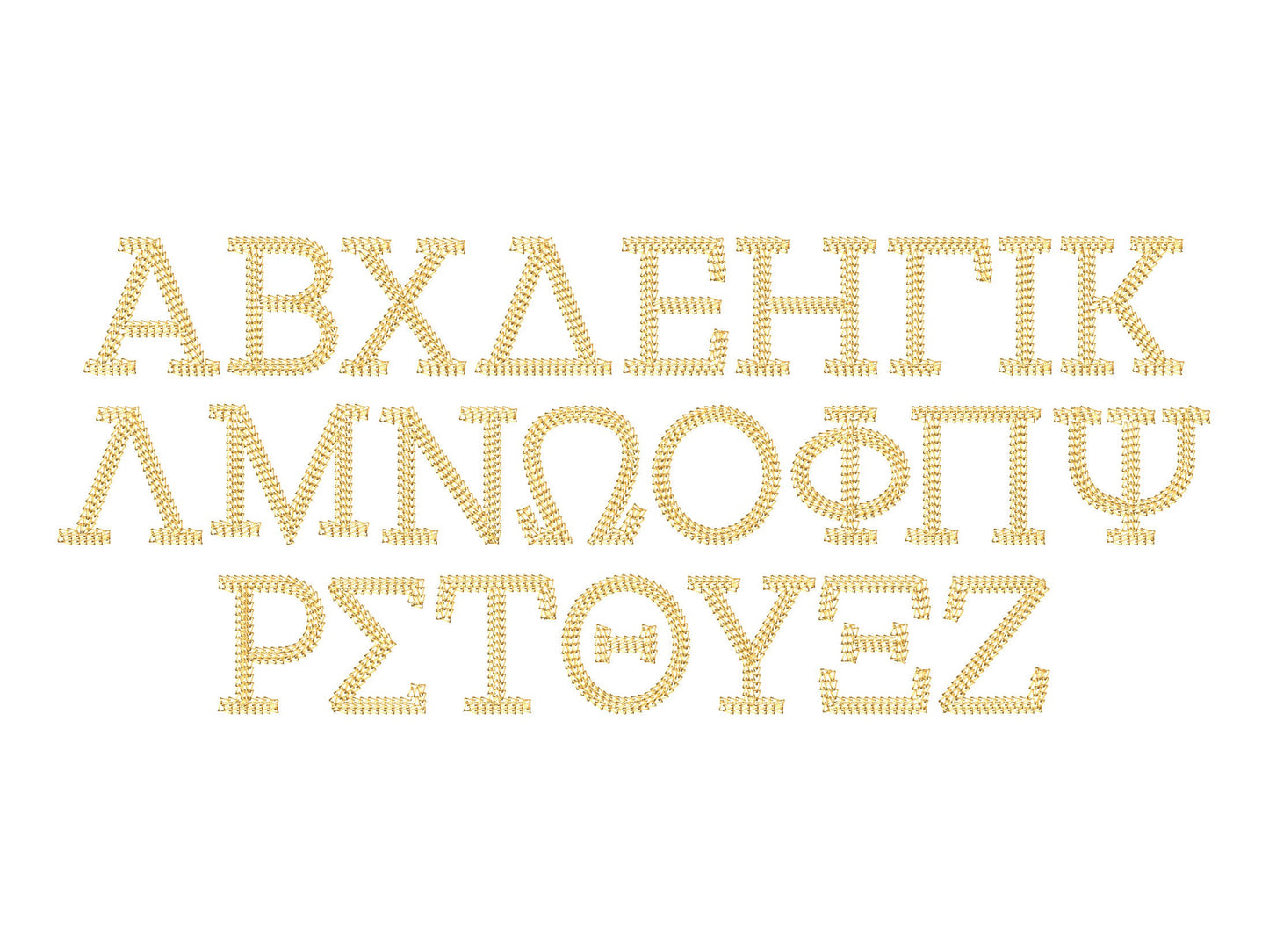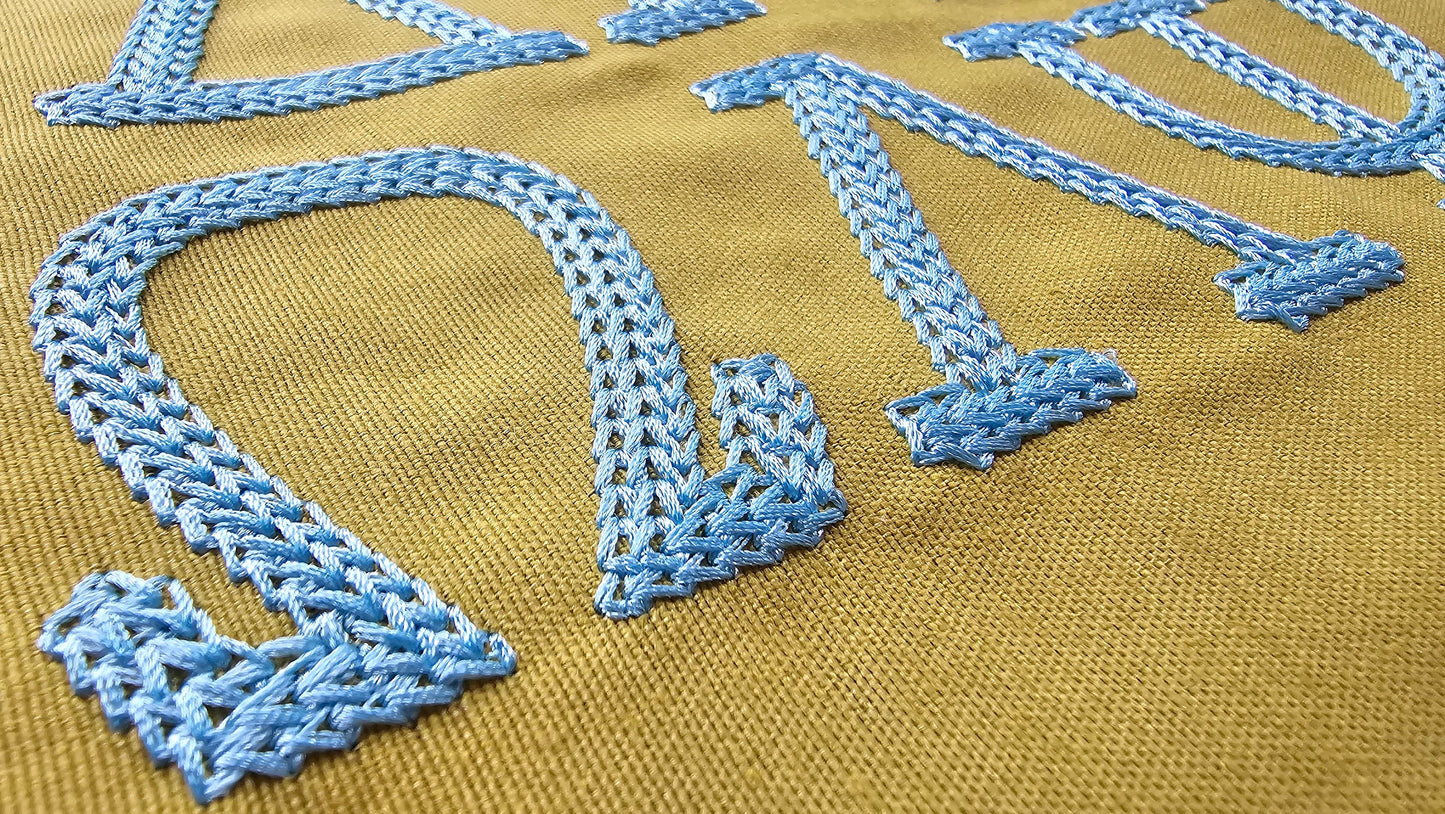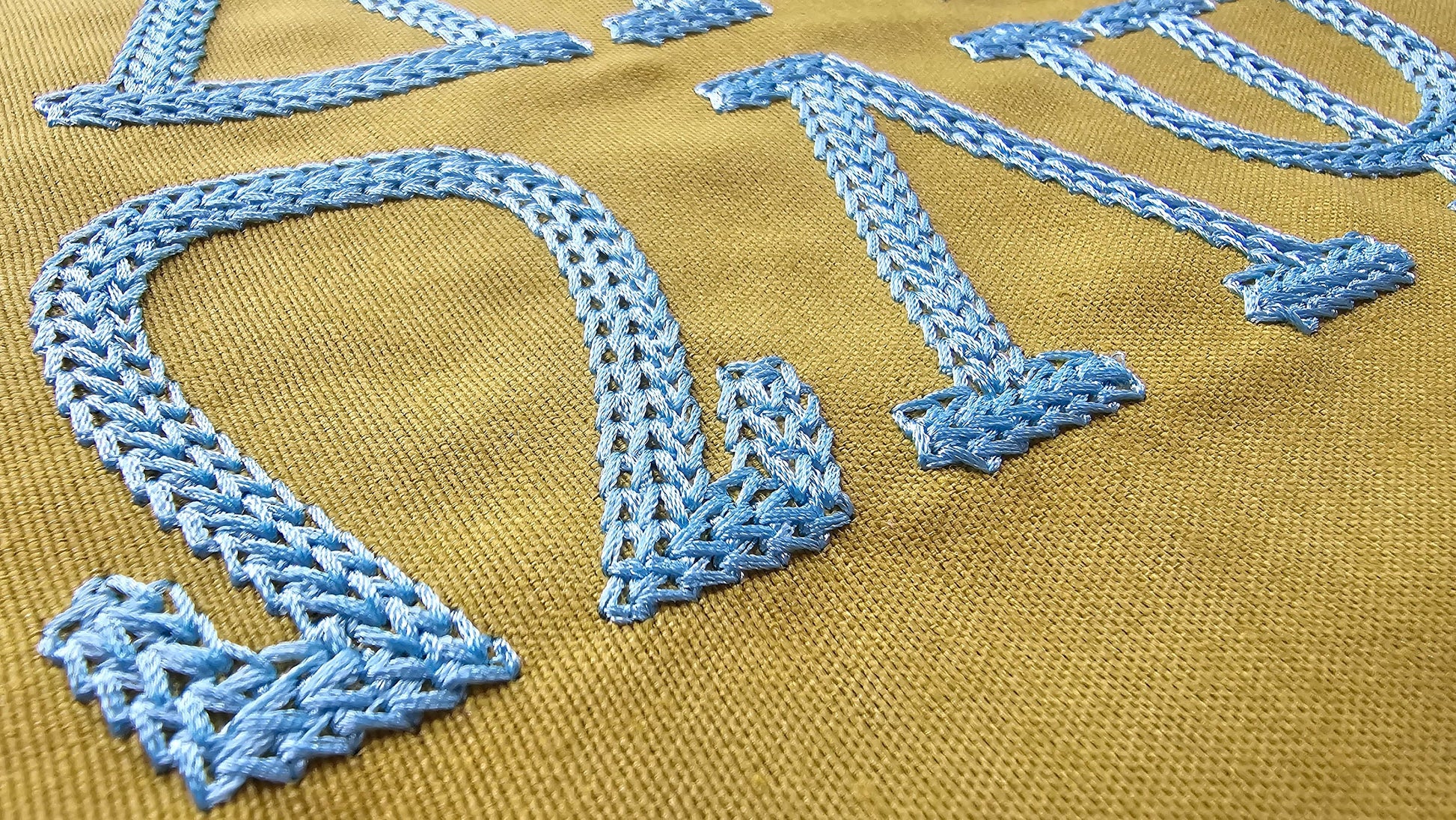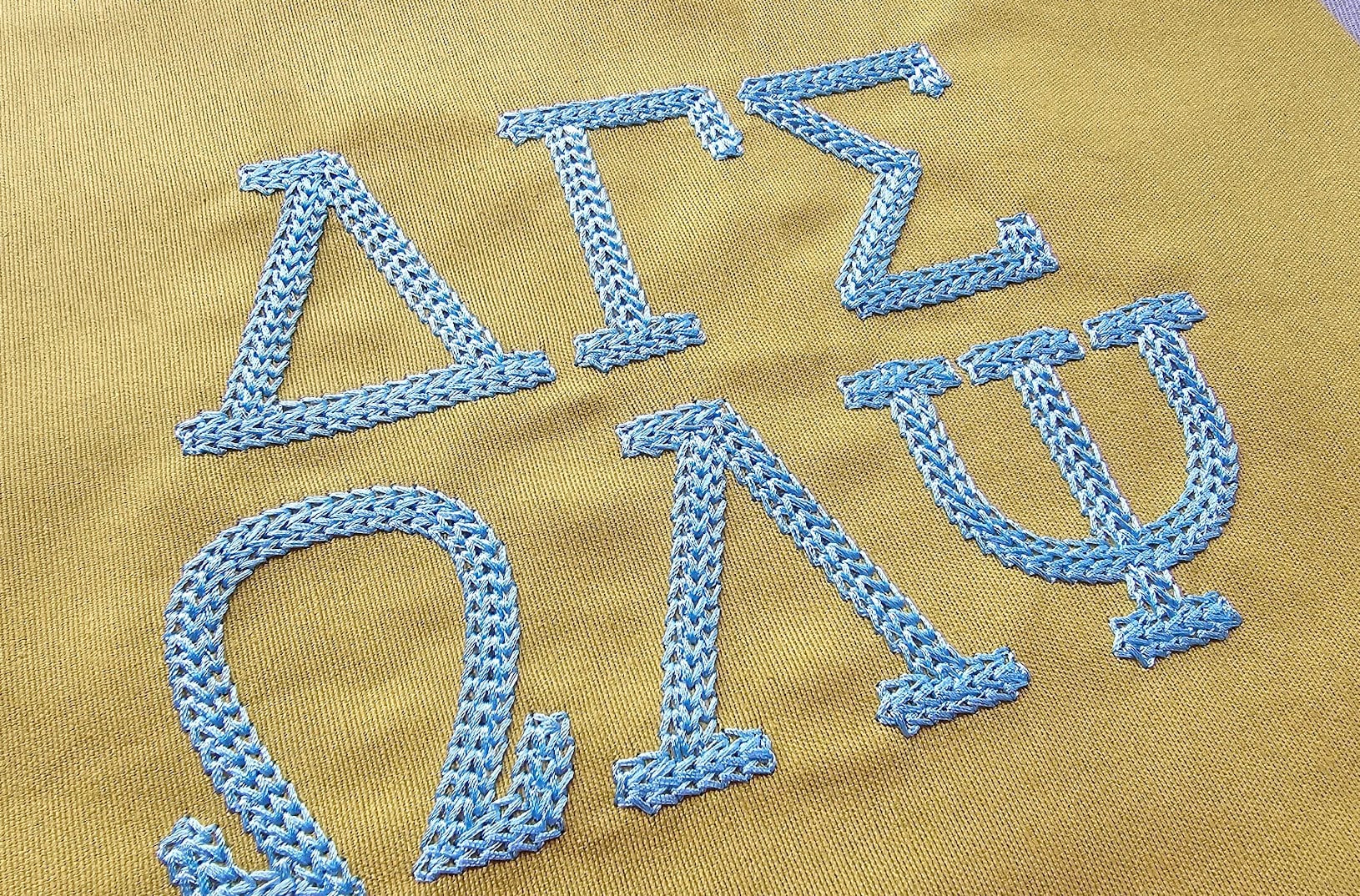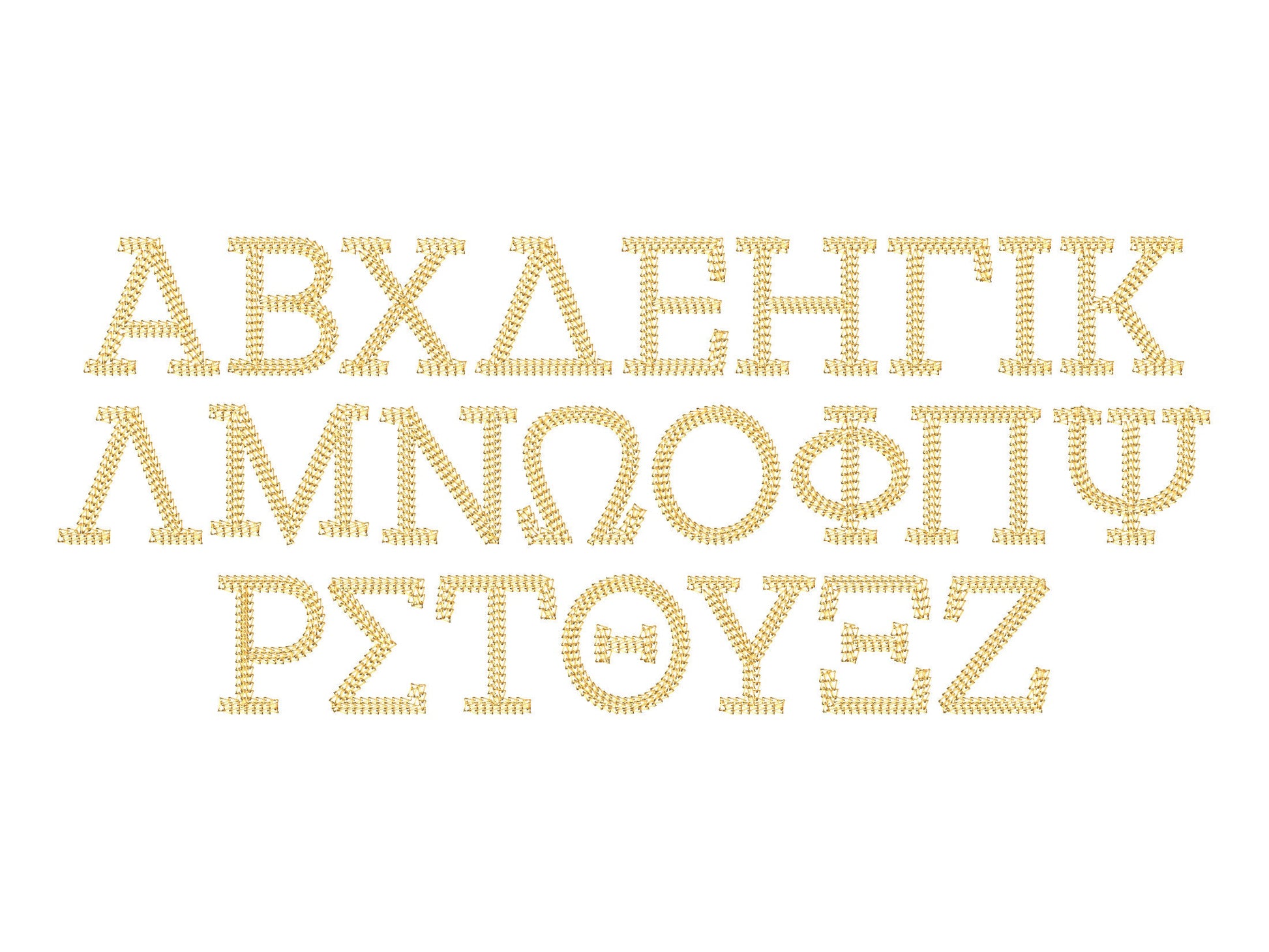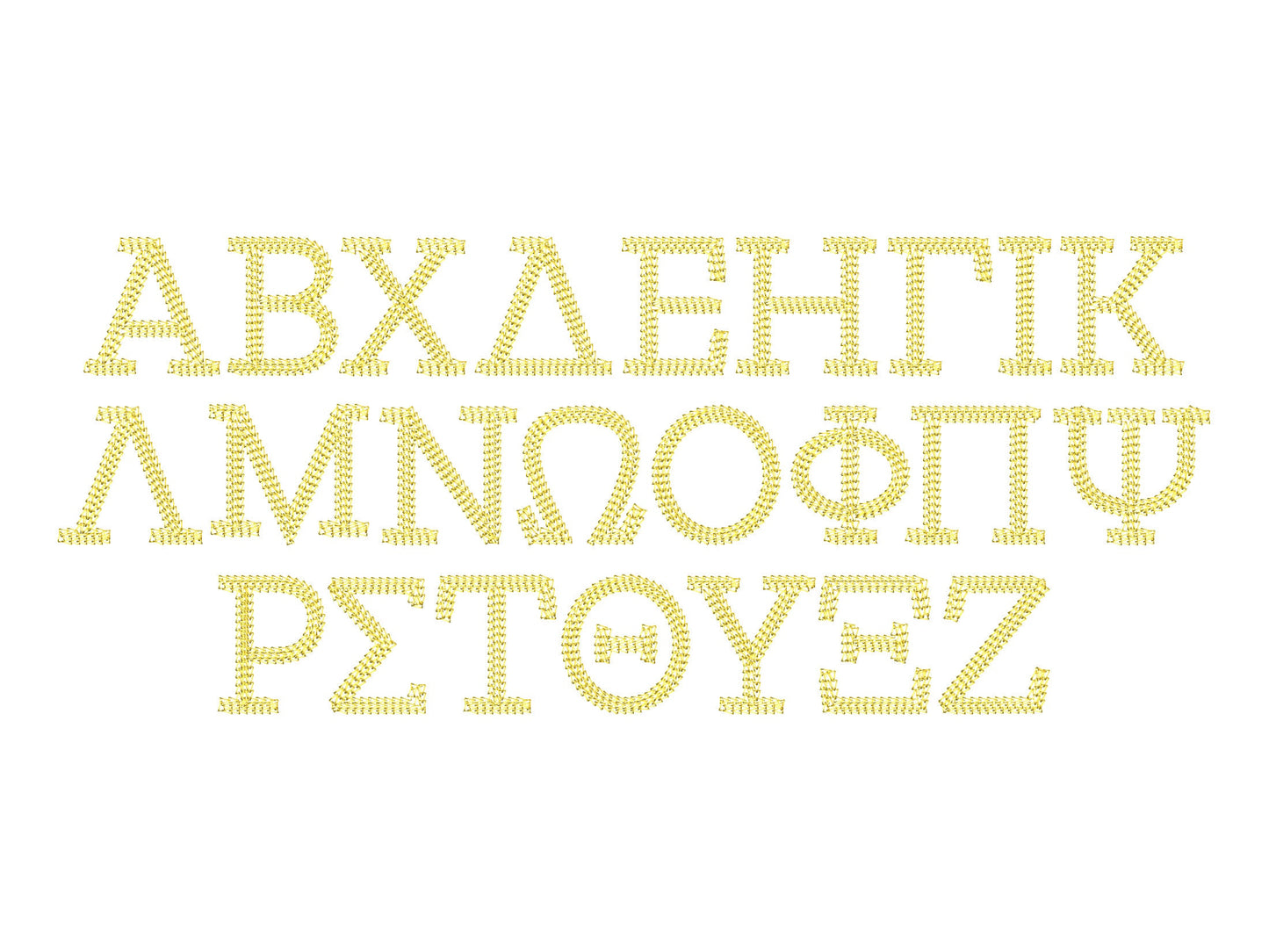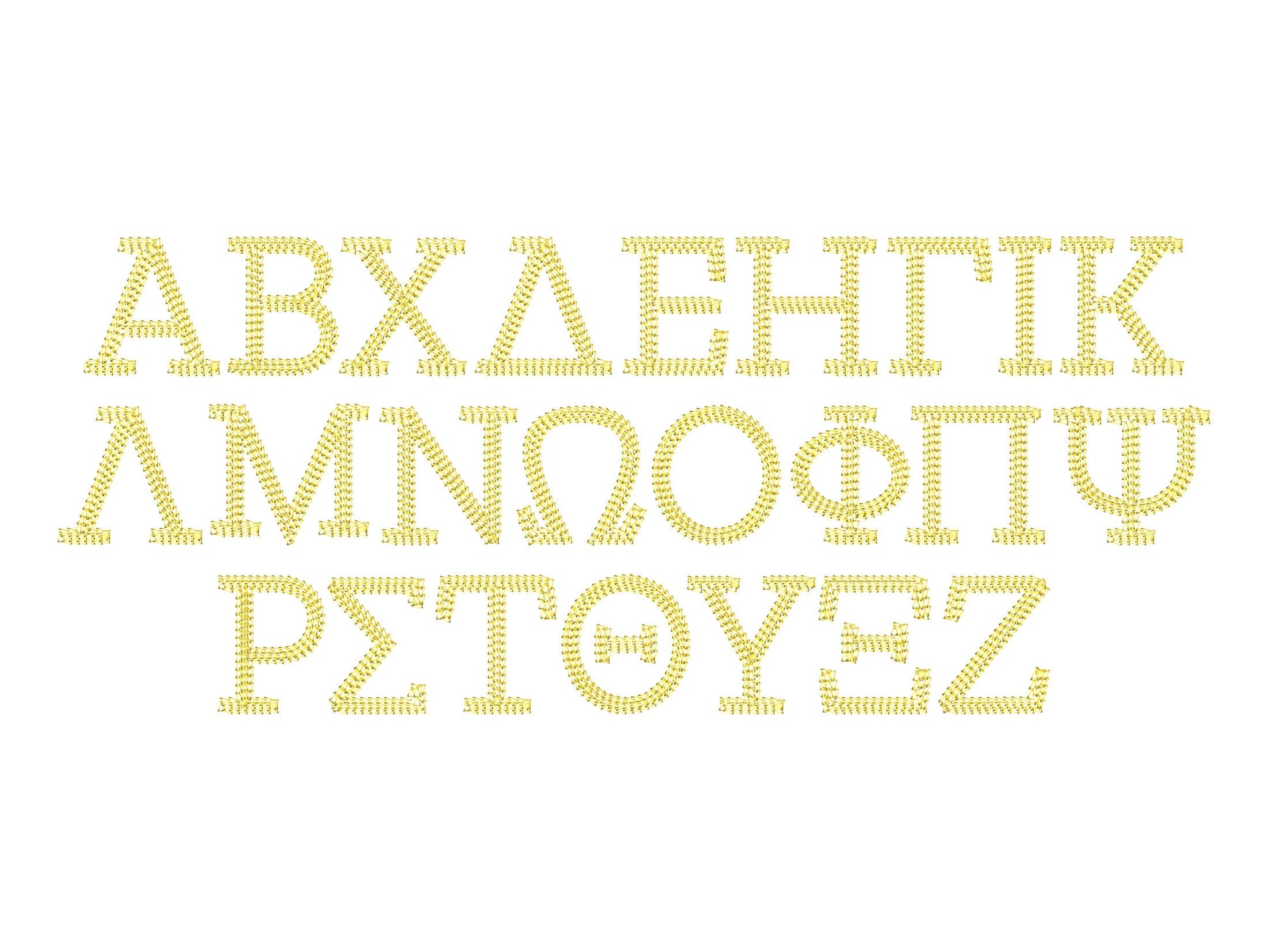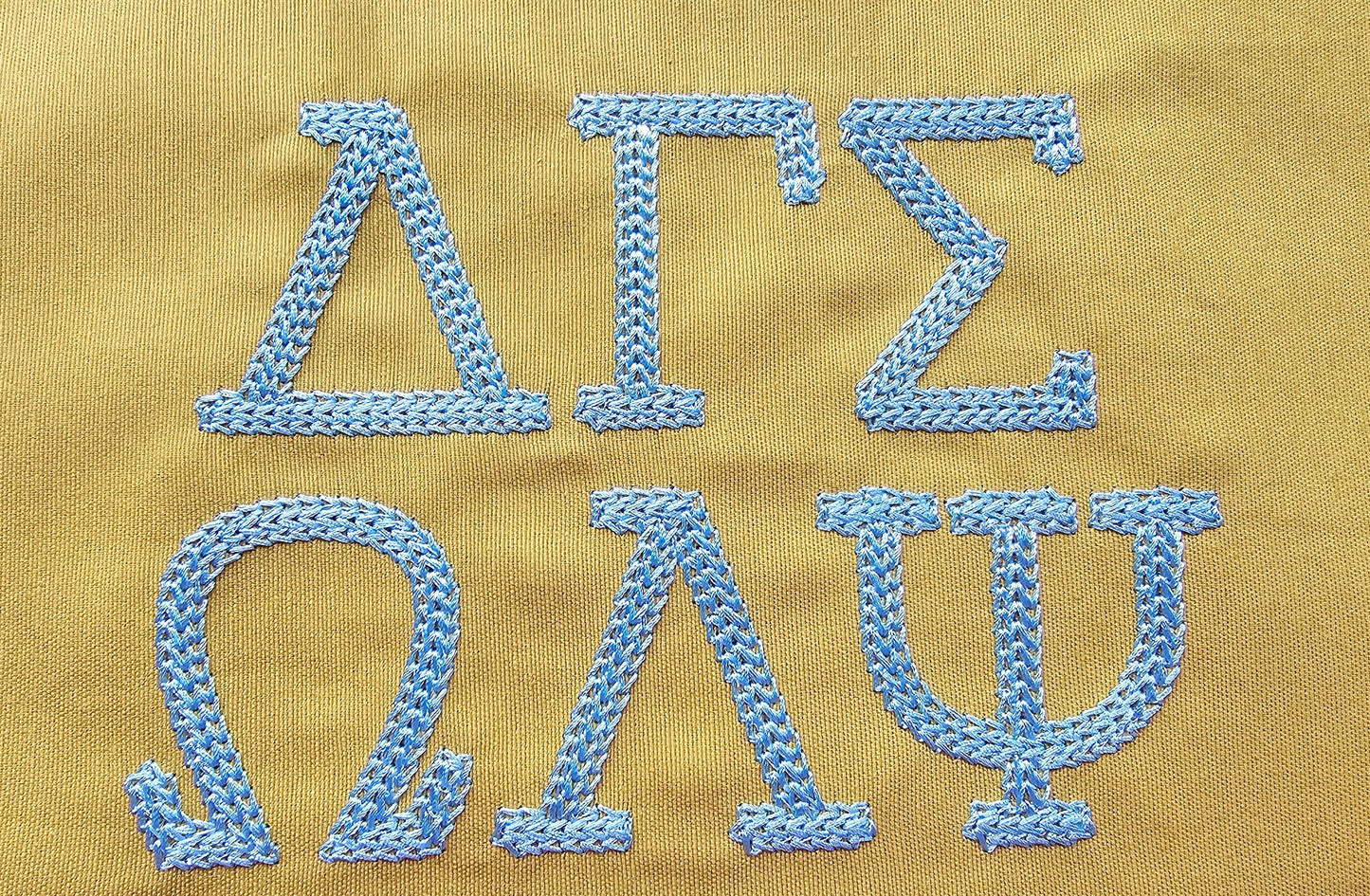
Or click to open the linkGreek letters filled with chain stitch for a hand-embroidered look. Lovely for sorority and fraternity sweatshirts, bags and gifts.
All 24 Greek letters in five sizes: 1.5, 1.8, 2.3, 2.7 and 3 inches. Textured chain fill.